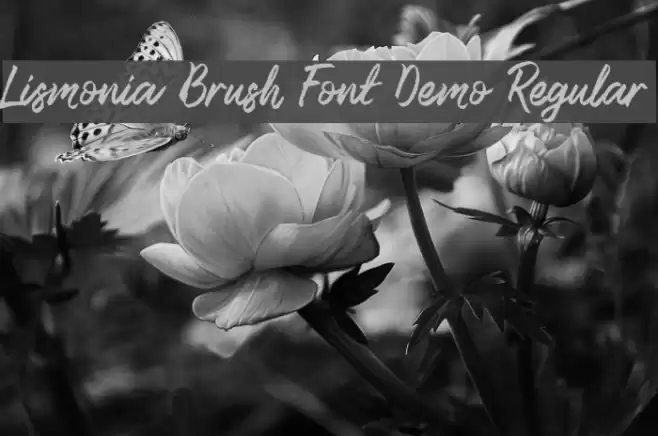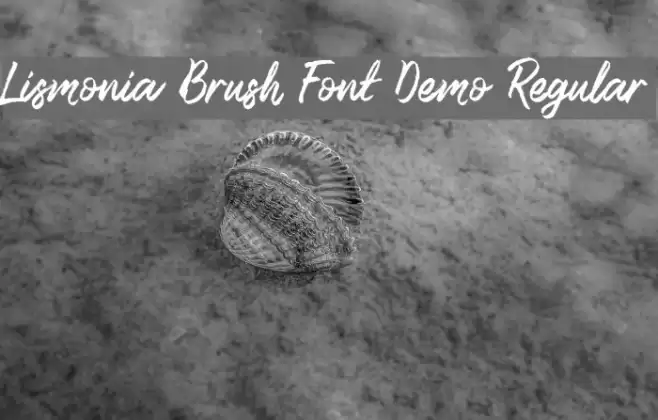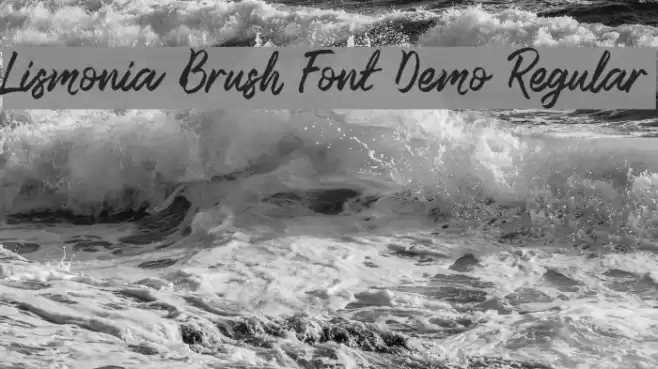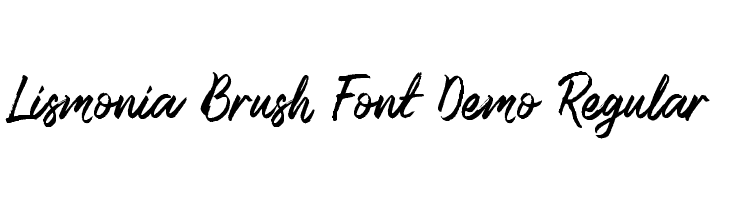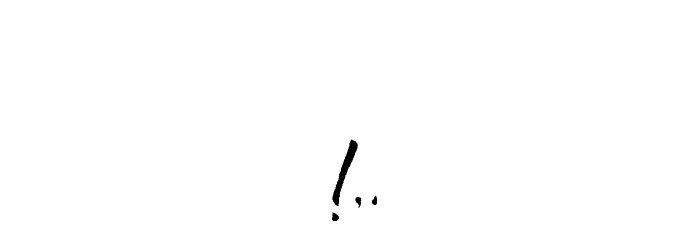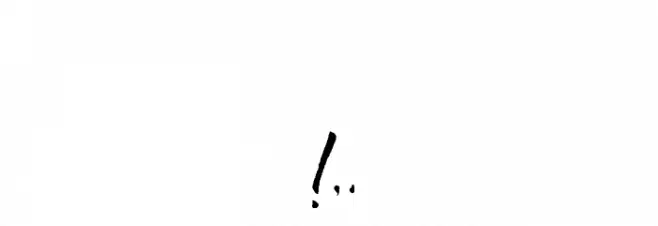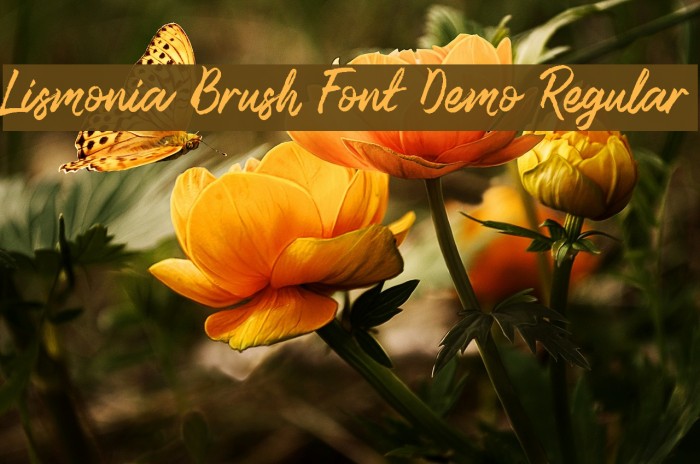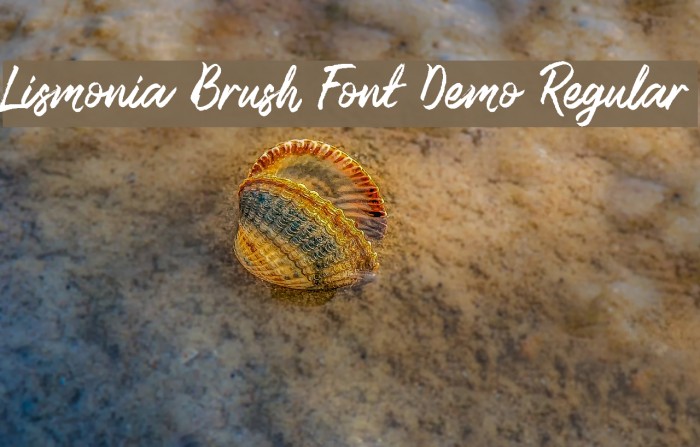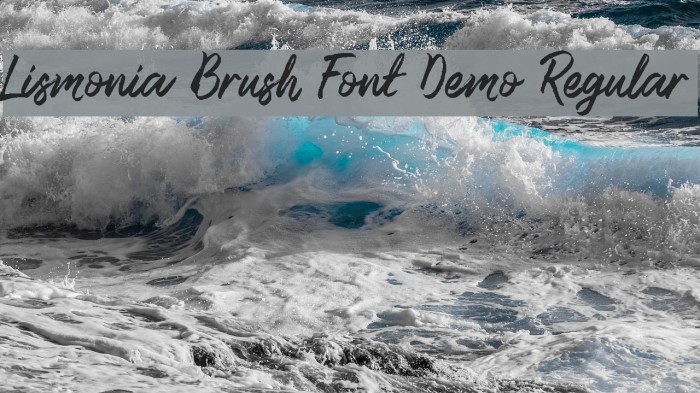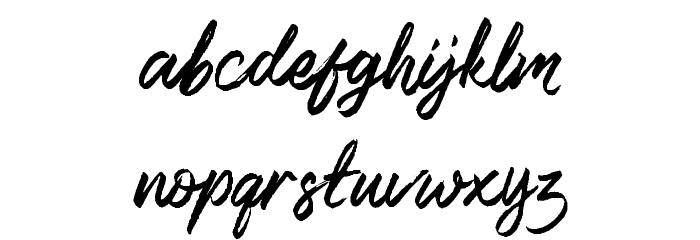
Lismonia Brush Font Demo Regular Font
Lismonia Brush Font Demo Regular Description
This font exudes a dynamic and energetic feel, characterized by its brush-like strokes that mimic the fluidity of hand-painted lettering. The uppercase letters stand tall with a slight slant, giving a sense of movement and spontaneity. The lowercase letters maintain this fluidity, with smooth curves and a consistent flow that enhances readability. The overall texture is rough yet controlled, adding a touch of authenticity and artistic flair. The font's natural and organic appearance makes it ideal for projects that require a personal touch or an artistic edge.
A dynamic brush-style font with fluid, hand-painted strokes from Uncategorized fonts.
- Proposed Projects: Ideal for branding, posters, invitations, and any project needing an artistic, personal touch.